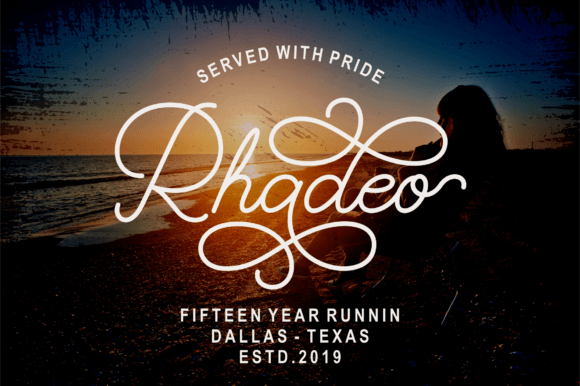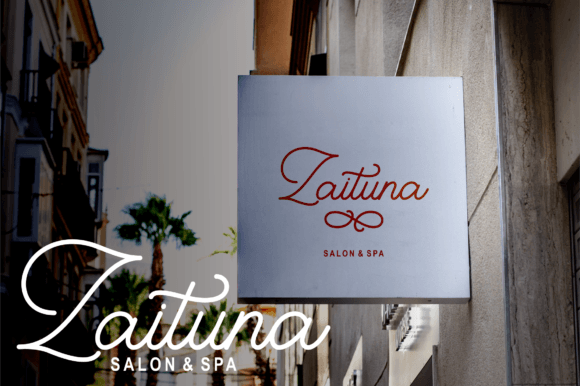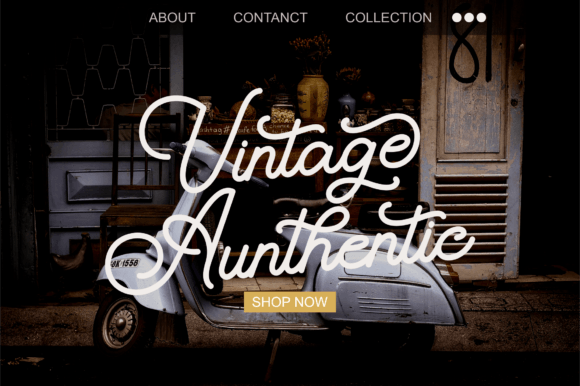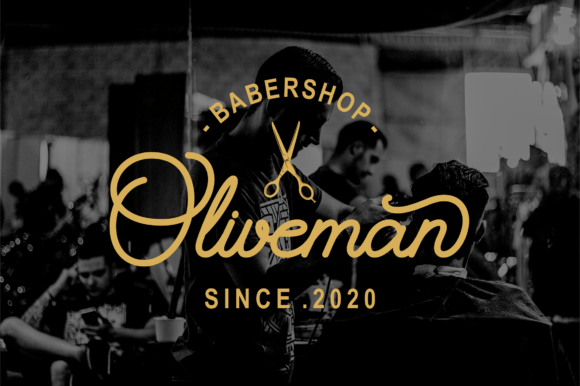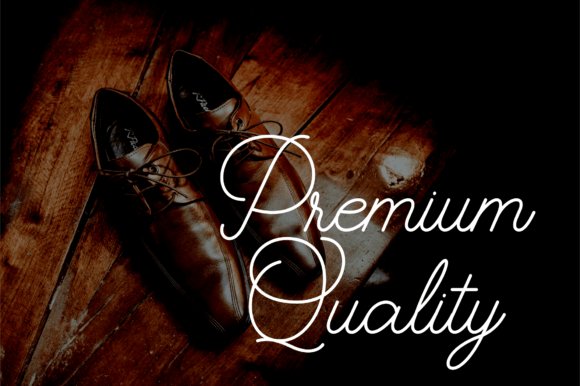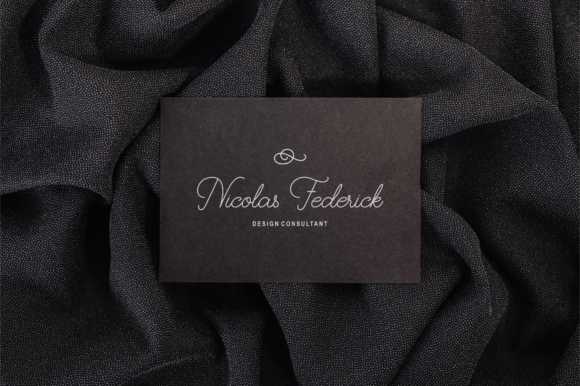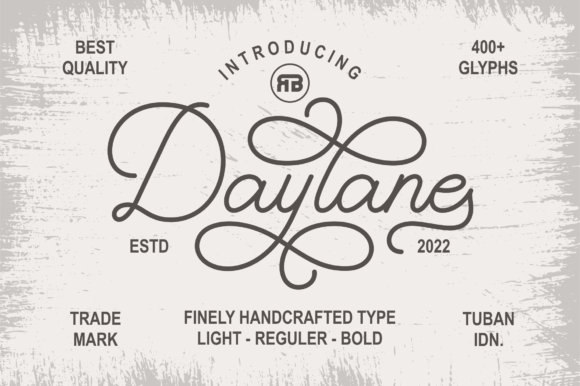
Introducing Daylane Font: Elevate Your Designs with Modern Elegance
In the world of design, fonts play a crucial role in conveying the tone and aesthetic of a brand or project. For designers and crafters seeking a modern, versatile, and elegant script font, Daylane Font is an exceptional choice. This modern monoline script font is perfect for a wide range of applications, from watermarks and branding to logos, invitations, and product packaging.
What is Daylane Font?
Daylane Font is a contemporary monoline script font designed to bring a touch of sophistication and elegance to various design projects. Its clean lines and fluid curves make it an ideal choice for designers looking to add a modern twist to their creations. Whether you’re working on a logo, invitation, or social media post, Daylane Font is sure to impress.
Key Features of Daylane Font
- Modern Monoline Script: Daylane Font boasts a sleek, modern monoline script style that is both elegant and versatile.
- Wide Range of Applications: Daylane Font is suitable for various design projects, including:
- Watermarks
- Invitations and stationery
- Wedding designs
- Social media posts
- Advertisements
- Product packaging and designs
- Labels
- Photography
- Special events
Why Choose Daylane Font?
Daylane Font offers several advantages that make it a top choice for designers and crafters:
- Uniqueness: Its modern monoline script style sets it apart from more traditional fonts, allowing your designs to stand out.
- Versatility: Daylane Font can be used across various design projects, making it a valuable addition to your font library.
- Elegance: The font’s clean and fluid lines bring a touch of elegance to any design, making it perfect for projects that require a sophisticated look.
Tips for Using Daylane Font
To get the most out of Daylane Font, consider the following tips:
- Experiment with Sizes: Daylane Font looks great in various sizes, from large headings to smaller body text. Experiment with different sizes to find the perfect balance for your design.
- Play with Swashes: Take advantage of the font’s swashes to add a personal touch to your designs. Swashes can be used to create beautiful connections between words or to add a decorative element to your text.
- Combine with Other Fonts: Daylane Font pairs well with a variety of fonts. Try combining it with a sans-serif font for a modern look or with a serif font for a more classic feel.
- Use for Branding: Daylane Font is an excellent choice for branding projects. Its unique and elegant style can help create a memorable brand identity.
Daylane Font is a versatile and elegant modern monoline script font that can elevate your designs to the next level. Its PUA encoding, wide range of applications, and ease of use make it an excellent addition to any designer’s toolkit. Whether you’re working on a branding project, creating invitations, or designing product packaging, Daylane Font is sure to impress. With its unique style and flexibility, Daylane Font is a valuable resource for designers and crafters looking to add a touch of modern elegance to their creations.